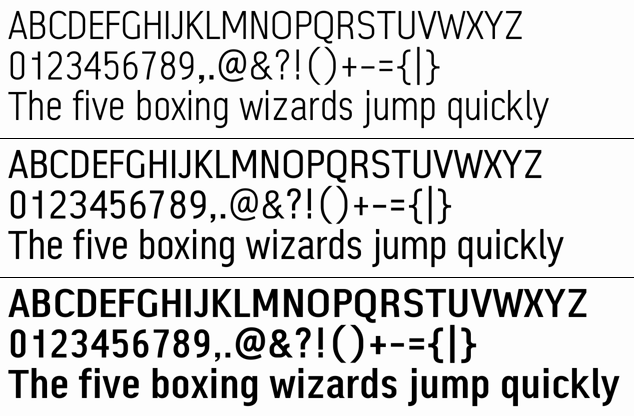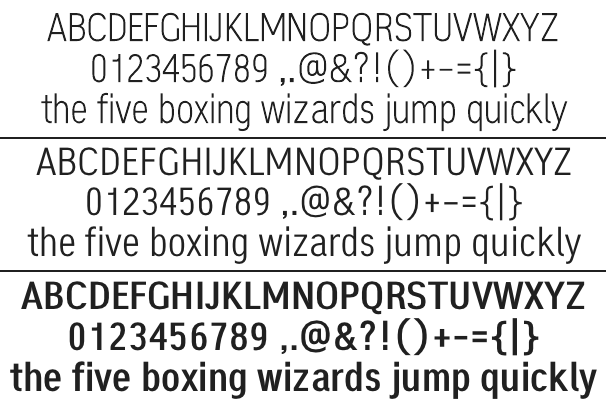
I originally created Workplace Sans because I wanted something that closely resembled the OS/2 WarpSans font, but which could be used under other operating systems. (My original motivation was actually to be able to use Windows-based graphics programs to draw OS/2 user interface designs.) As a bitmap font cannot be antialiased, my assumption was that Workplace Sans generally would not be either.
In light of these goals, early versions put a great deal of effort into trying to force the glyphs to rasterize (in monochrome) as identically as possible to WarpSans at 9- and 11-point (120 dpi) sizes, while maintaining a certain minimal level of internal consistency. With no direct control over hinting, I had instead to resort to pushing the glyph outlines themselves into rather awkward contortions. At the time, very little consideration went into making the actual glyph shapes attractive on their own merit.
Since that time, however, Workplace Sans has found itself adopted for use under OS/2 by a number of ported applications which use the FreeType library for rendering text. These applications cannot load OS/2 bitmap fonts (because FreeType cannot), and thus are unable to use WarpSans for their user interface; Workplace Sans thus found itself recommended because it approximates the style and dimensions of WarpSans, thereby allowing a certain degree of consistency with the rest of the system. Significantly, however, the use of FreeType implies that text is antialiased by default.
As a result, Workplace Sans is now much more likely than I originally envisioned to be used in an environment where it is antialiased. Indeed, this now appears to be its primary use.
Consequently, I have moved away from my original obsession with exactly duplicating the appearance of WarpSans under binary rasterization, and now focus instead on making the font more attractive when antialiased, including at larger sizes.
The design history of Workplace Sans closely parallels the progression of my own (self-)education in typographic principals. I started out knowing virtually nothing of type design or history; as my knowledge has steadily grown over the years, Workplace Sans has evolved along with it.
Workplace Sans has changed greatly since its inception. This page gives a brief summary of the various generations of its design.
I originally designed Workplace Sans by attempting to directly translate the glyph bitmaps from the 06x16 version of WarpSans into approximately equivalent outlines. The pixel grid was conceptualized into units per em (upm) by assuming that each pixel was 80upm wide by 67.5upm high.
Initially, the strokes filled these dimensions exactly, but I was unhappy with the results of this approach. I found that reducing the stroke width and height to 60upm produced better results, as the lines were slightly less likely to fall outside the pixel boundaries when rasterized.
My only focus at this point was producing satisfactory rasterization at 9 point (120dpi) size. Since I was at the mercy of TypeTool's automated hint generation, this required a great deal of trial and error. The resulting glyph outlines, when viewed in any other form, looked like something out of Bizarro World.
To the best of my recollection, none of these early experiments was ever released publically.
The first released versions continued to be characterized by very weirdly-shaped glyphs, although it was considerably improved over the earliest versions.
At this point, almost all focus was still on achieving a rasterization identical to WarpSans, with very little consideration given to aesthetics or design. Only one weight was provided; stroke width was a uniform 60upm in both directions.
The publically released builds at this point tended to be very
vague with respect to versioning. I generally released them with a
date stamp rather than an explicit version number; the actual numbers
compiled into the font headers were more or less arbitrary. I
eventually settled on a scheme which culminated in version 0.1.
During this phase I began trying to make the glyph shapes a little more regular, although they still looked rather odd. I narrowed the strokes to 50upm in both directions in an effort to improve the rasterization, and also slightly tighted up the spacing around each glyph.
Towards the end of this period an experimental bold weight was released, with independent version numbering (starting from v0.1). The bold weight was markedly different in design from the regular weight, reflecting the dramatically different appearance of the WarpSans Bold bitmap font. Again, my emphasis was on getting the rasterization to match the appearance of WarpSans Bold as much as possible.
These were the first versions of Workplace Sans to achieve
widespread use. Both Mozilla and OpenOffice began to make use of
FreeType for rendering, and endorsed Workplace Sans as a substitute
for WarpSans. As such, what started as a private hobby found itself
turning into a widely-used product.
Version 0.5 (regular weight only) could be considered a transitional release. Starting with this version, I upgraded to version 3 of FontLab TypeTool, which has a number of advantages such as support for composite glyphs. It also features a more advanced TrueType hint auto-generator, which I found noticeably improved the appearance of rasterized glyphs. Taking advantage of this, I tweaked the glyph outlines to tone down the weirdness slightly (although text was still strange-looking at larger sizes). While the glyph strokes remained at 50upm horizontally, I narrowed them fractionally in the vertical direction.
![[Version 0.5]](g25_preview.png)
However, I received a number of complaints that version 0.5 appeared shrunken and/or irregular when rendered under FreeType 2; I eventually discovered that this was due to some of the existing global font metrics clashing somehow with the automatic hints generated by TypeTool 3.
At this point, I was becoming increasingly dissatisfied with the overall appearance of the font. A large reason for this was that Workplace Sans was now typically being anti-aliased for use in various applications, which tended to show up its design peculiarities more than monochrome rasterization. Having it anti-aliased also meant that it was no longer particularly important that the font to rasterize pixel-for-pixel just like WarpSans. Furthermore, the font was now being used far more widely, and far more visibly, than I had ever anticipated would be the case. I could now expect Workplace Sans to be rendered in a wide variety of sizes and contexts, not merely as 9-point widget text.
I eventually decided that it was time to redesign the entire font with a view developing it into a proper typeface.
Starting with version 0.6, the font was completely redrawn with an eye to achieving a regular and consistent appearance. I was still largely self-taught at this point, although I increasingly took to studying the details of other realist typefaces up close. The objective of maintaining resemblance to WarpSans when rasterized was de-emphasized (although not abandoned completely). Instead, starting with version 0.71 an experimental alternate build with embedded WarpSans-style bitmaps was provided.
At around this point, I also tightened the letter-spacing significantly, although the sidebearings for each character still approximated those of WarpSans.
Due to the rendering problems with version 0.5, I returned to
generating the final font files with TypeTool 2 (although I continued to
use TypeTool 3 for actual development).
With this version, I finally moved decisively away from trying to force the outlines to rasterize like WarpSans (as the new bitmapped versions were deemed adequate for this task), and focused instead on making the font more legible and attractive under a wide range of sizes. The new basic designs from the version 0.7 regular weight were kept (with some modifications such as a slightly increased caps height), but the glyph strokes were widened to 80 upm to give the characters a more substantial appearance. This was done partly to bring the font more into line with common practice, and partly because the thinner strokes resulted in extremely poor legibility when anti-aliased at small sizes (particularly at 96dpi and below).
A new "light" weight was added, which was similar to the old regular weight but with the strokes widened to 60upm from 50. In addition, a completely redesigned bold weight was introduced, which abandoned the highly distinctive style inherited from WarpSans Bold and instead tracked the design of the regular and light weights.
The version numbering was harmonized at this point to be the same for all weights. The "experimental" designation was dropped from the bitmapped releases, and they were made available alongside the standard versions.
Finally, after adjusting the global font metrics, I was able to return
to generating the fonts with TypeTool 3, starting with version 0.81. I
also removed all hints, deeming them unnecessary with the widespread use
of antialiasing.
The latest redesign was started with an eye to giving the text a more relaxed and readable appearance. The major stylistic change was the lengthening of all outside curves, to reduce what I later discovered was known as the "bone" effect, and also to provide a softer character overall. Other minor tweaks included giving the lowercase "a" a more pronounced tail, and redesigning the "@" and "&" symbols.
In addition, the regular weight was lightened slightly to a 70upm stroke width, and the light weight was returned to 50upm. I restored the (auto-generated) hints in the light weight, mostly to keep it consistent with older versions, but left the other weights unhinted.
After version 0.9 I raised the apex of both the upper- and lowercase "w" glyphs for more a consistent colour.
At this point, I finally got my hands on Karen Cheng's superb book Designing Type, which I soon wished I'd found years earlier. For version 0.91 and up, I went through and revisited all the counters to give them more regular shapes. I also reworked the letter-spacing throughout, a relatively minor but welcome change.